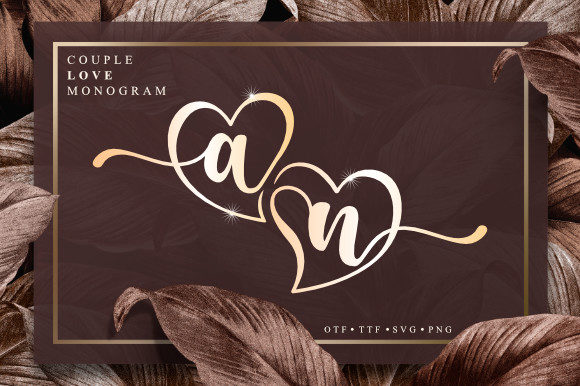
Fall in love with Couple Love Monogram Font - the best font for rustic weddings! Created by Monosimple, this unique decorative font is perfect for all your creative needs. Whether you're designing logos, invitations, or wedding stationery, Couple Love Monogram is the perfect choice for adding a touch of romance to your project.
With its intricate design and elegant curves, this font is the ideal choice for all your wedding needs. Use it for everything from social media posts and advertisements to product packaging and labels. Its versatility makes it perfect for any occasion - not just weddings! With Couple Love Monogram, you can add a touch of romance to any project.
This font is also perfect for Valentine's Day! Create heartfelt cards, posters, and social media posts that will make your loved one feel special. The romantic design of this font is perfect for expressing your love and affection.
Couple Love Monogram Font is easy to use and is sure to impress your clients and customers. It is also compatible with most design software, making it a great choice for designers of all levels. Its decorative style will elevate any project and help you stand out from the crowd.